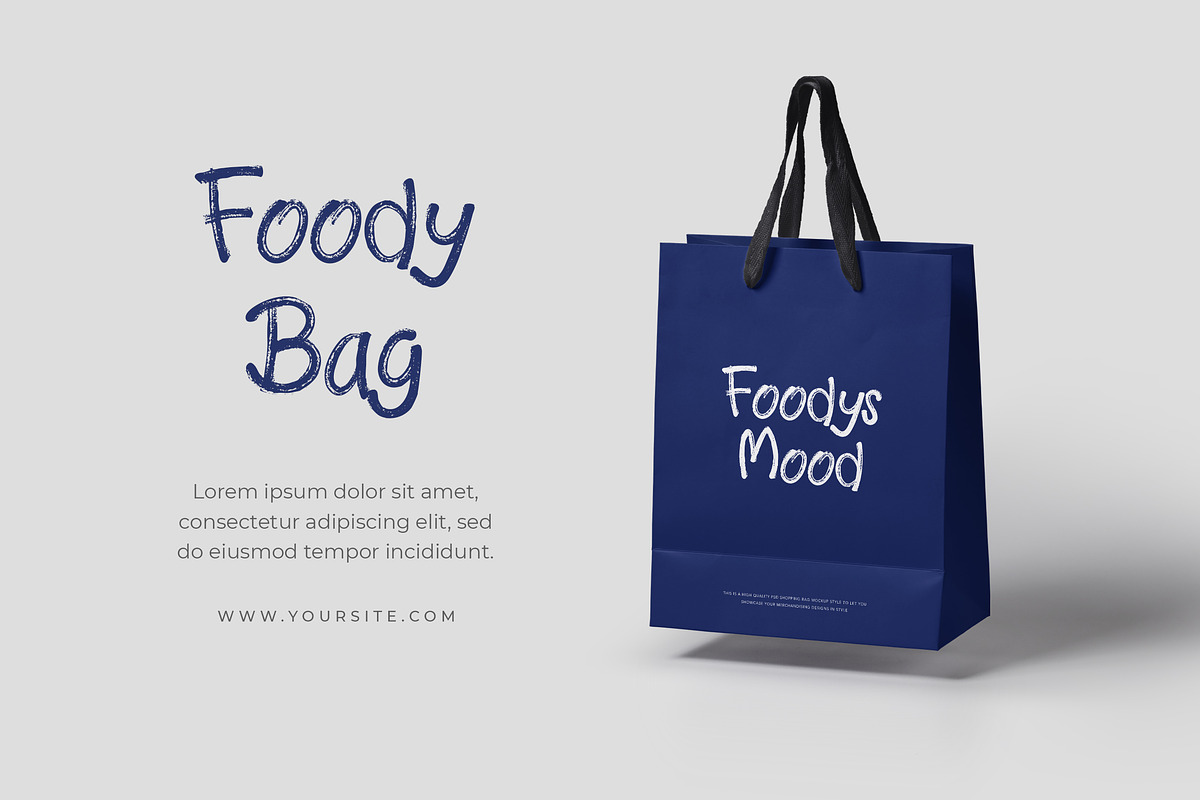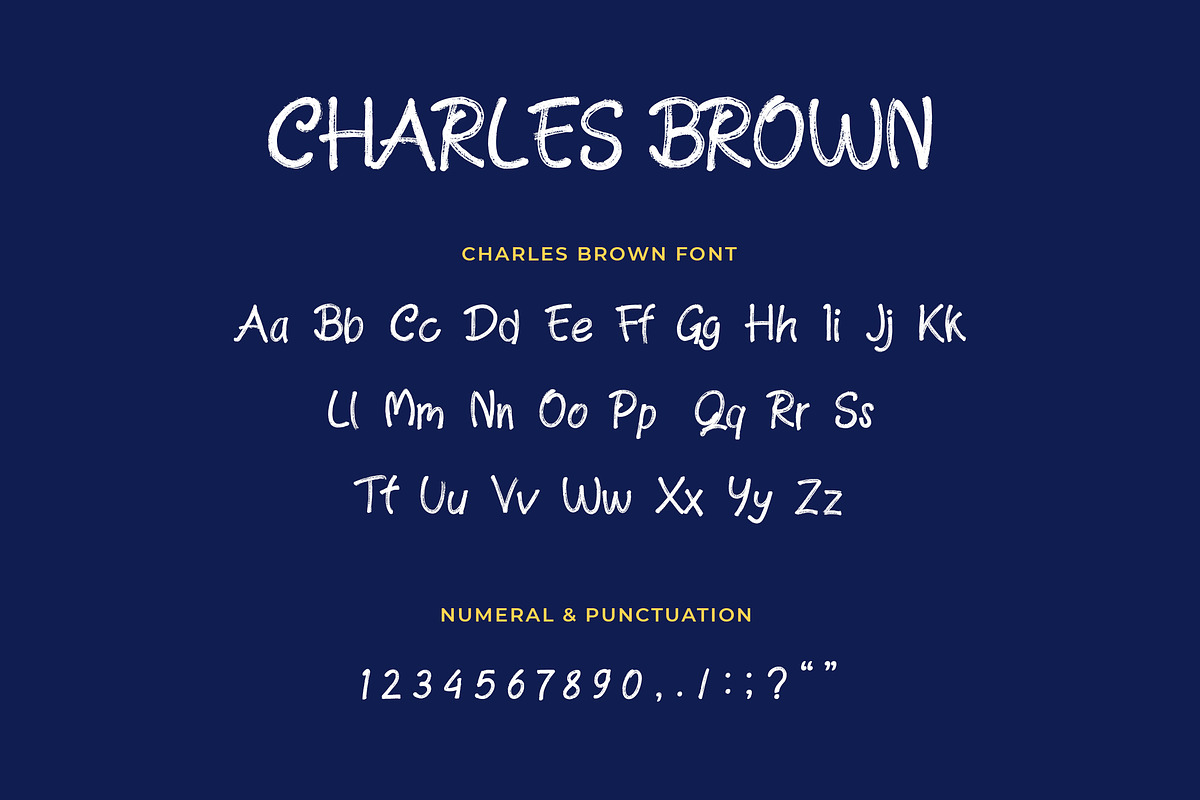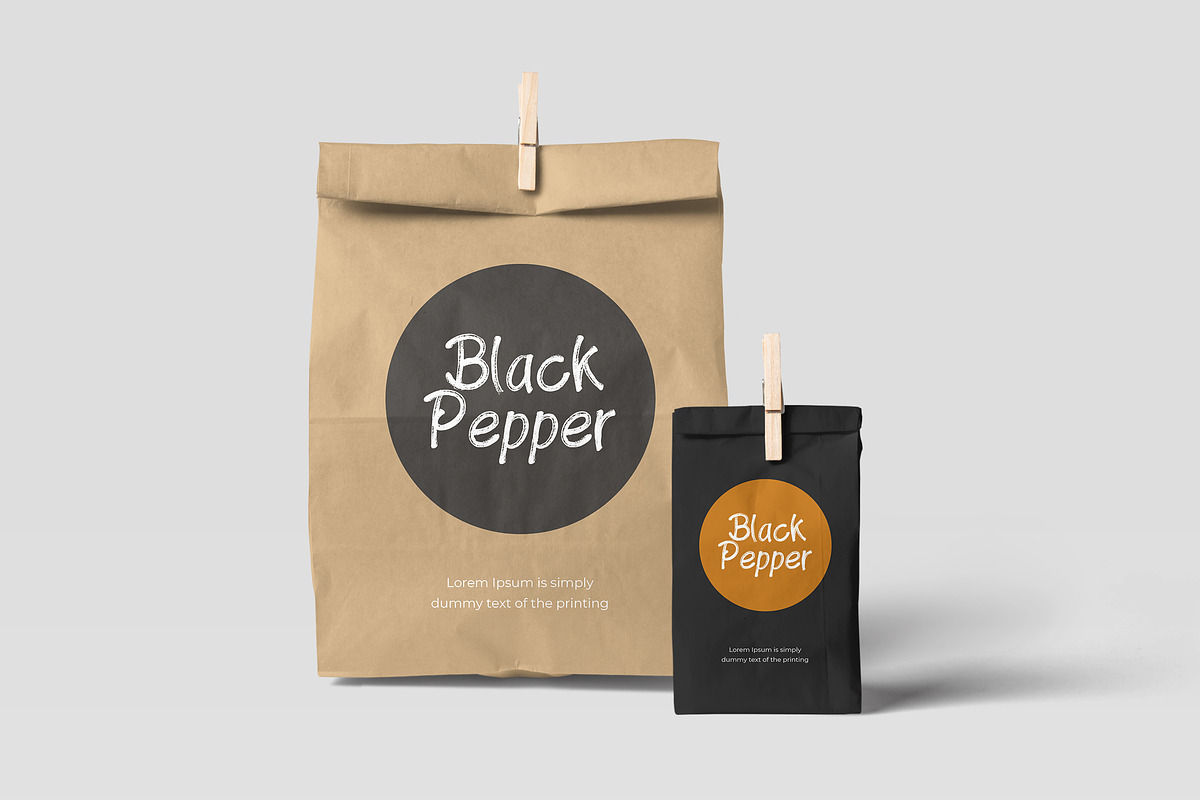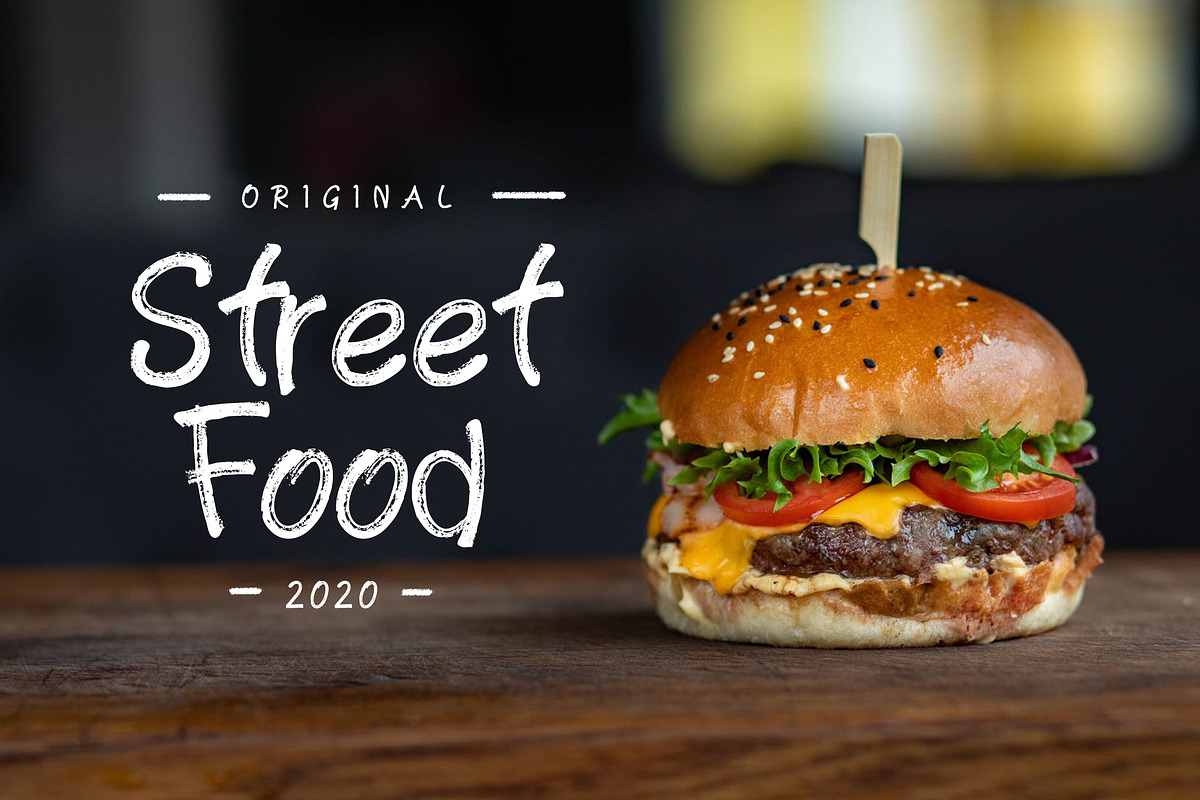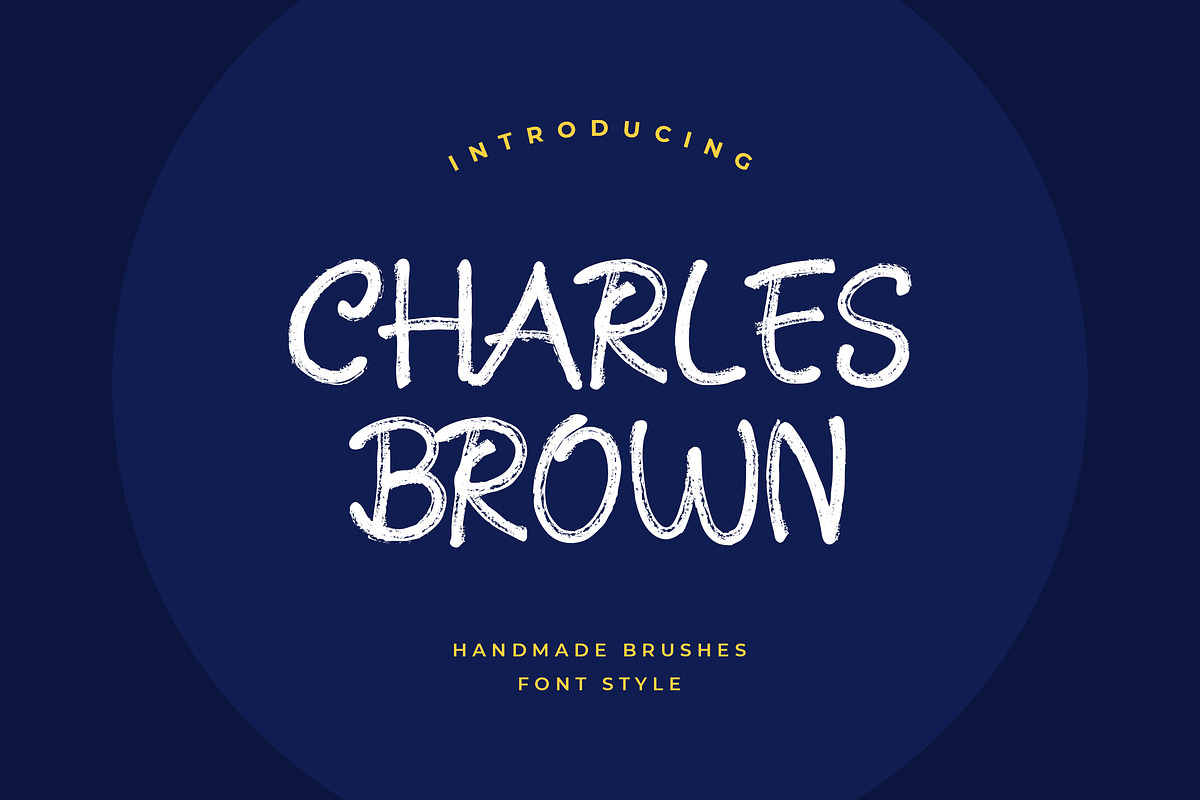
Charles Brown Handmade Brush Font
Charles Brown is a perfect handmade brush for branding projects, logo, wedding designs, social media posts, advertisements, product packaging, product designs, label, photography, watermark, invitation, stationery and any projects that need handwriting taste.
This font has a really nice flow so you use it in a large text if you want to give them a touch of personality. It can be used on social media content, for branding or packaging.
Charles Brown Handmade Brush Font by UICreative fits naturally into Branding, posters, packaging, typography.